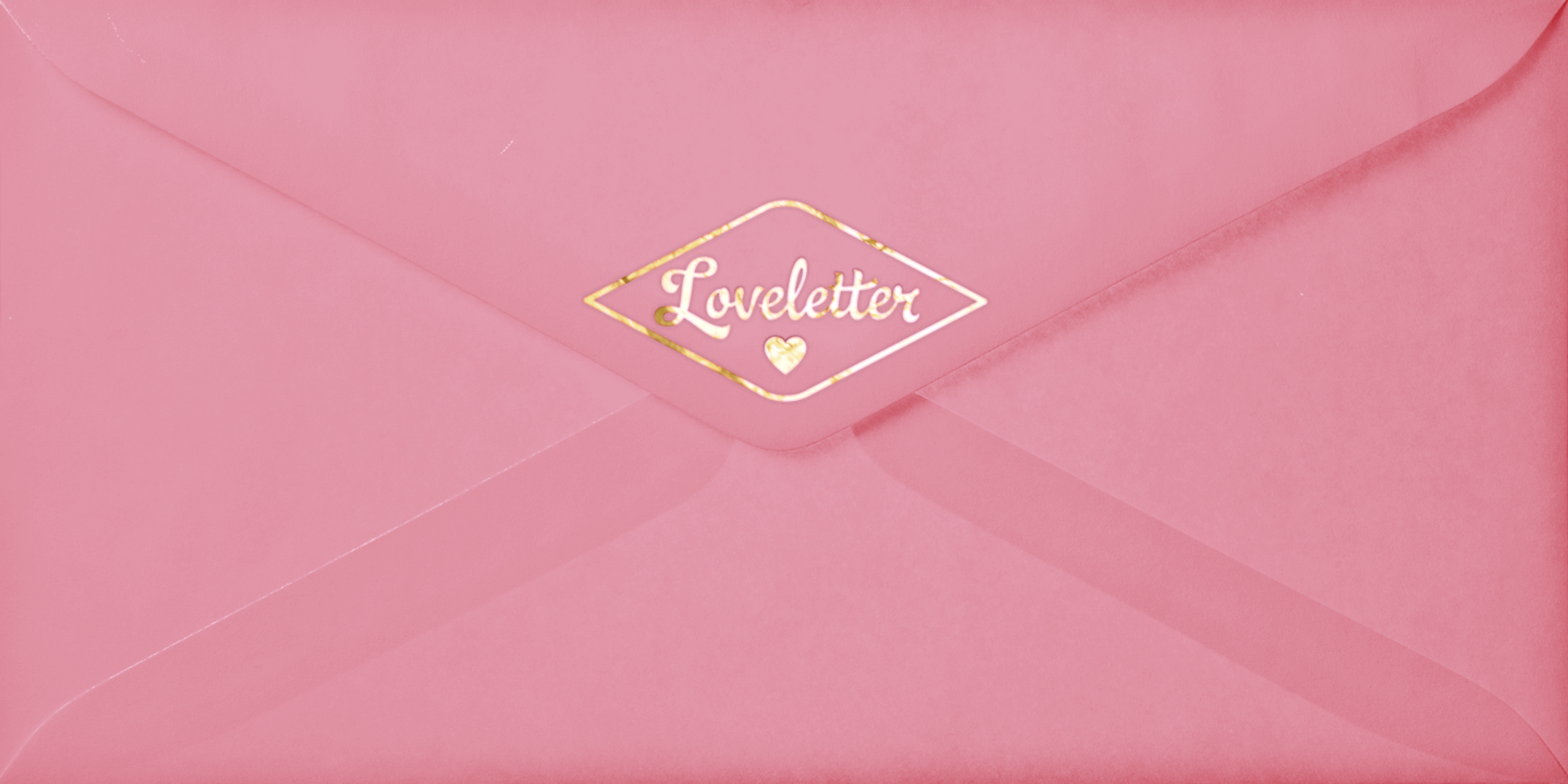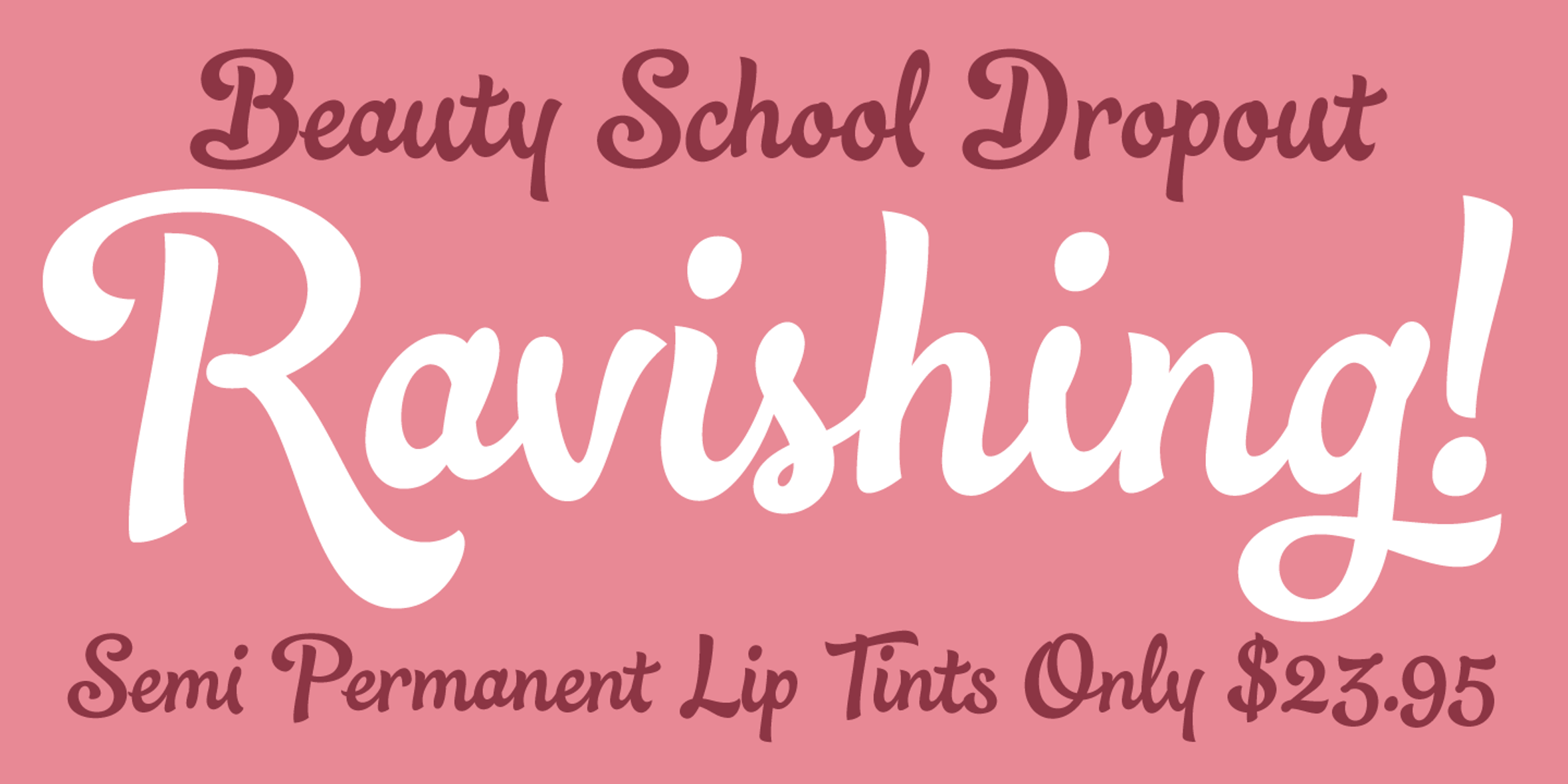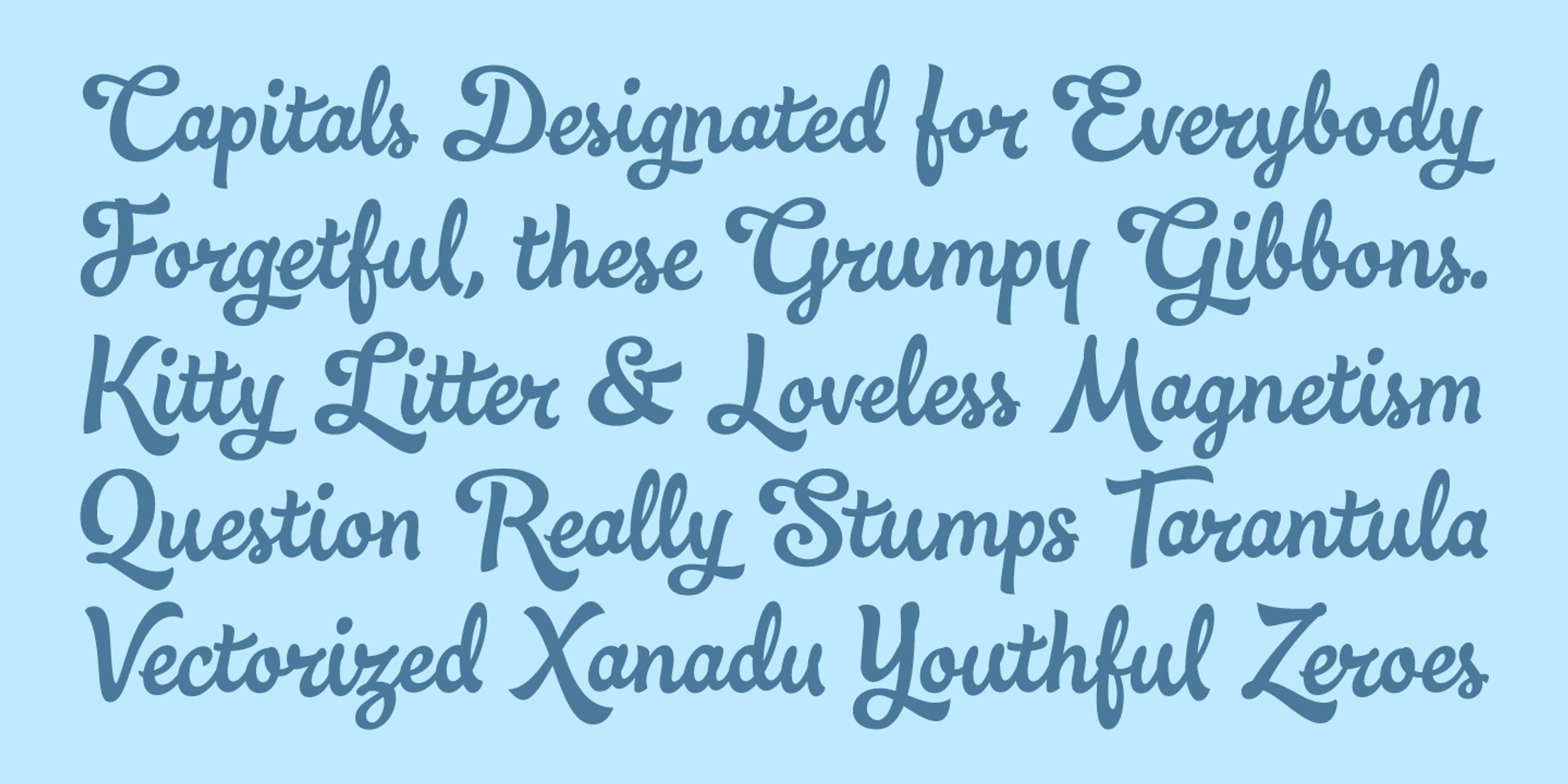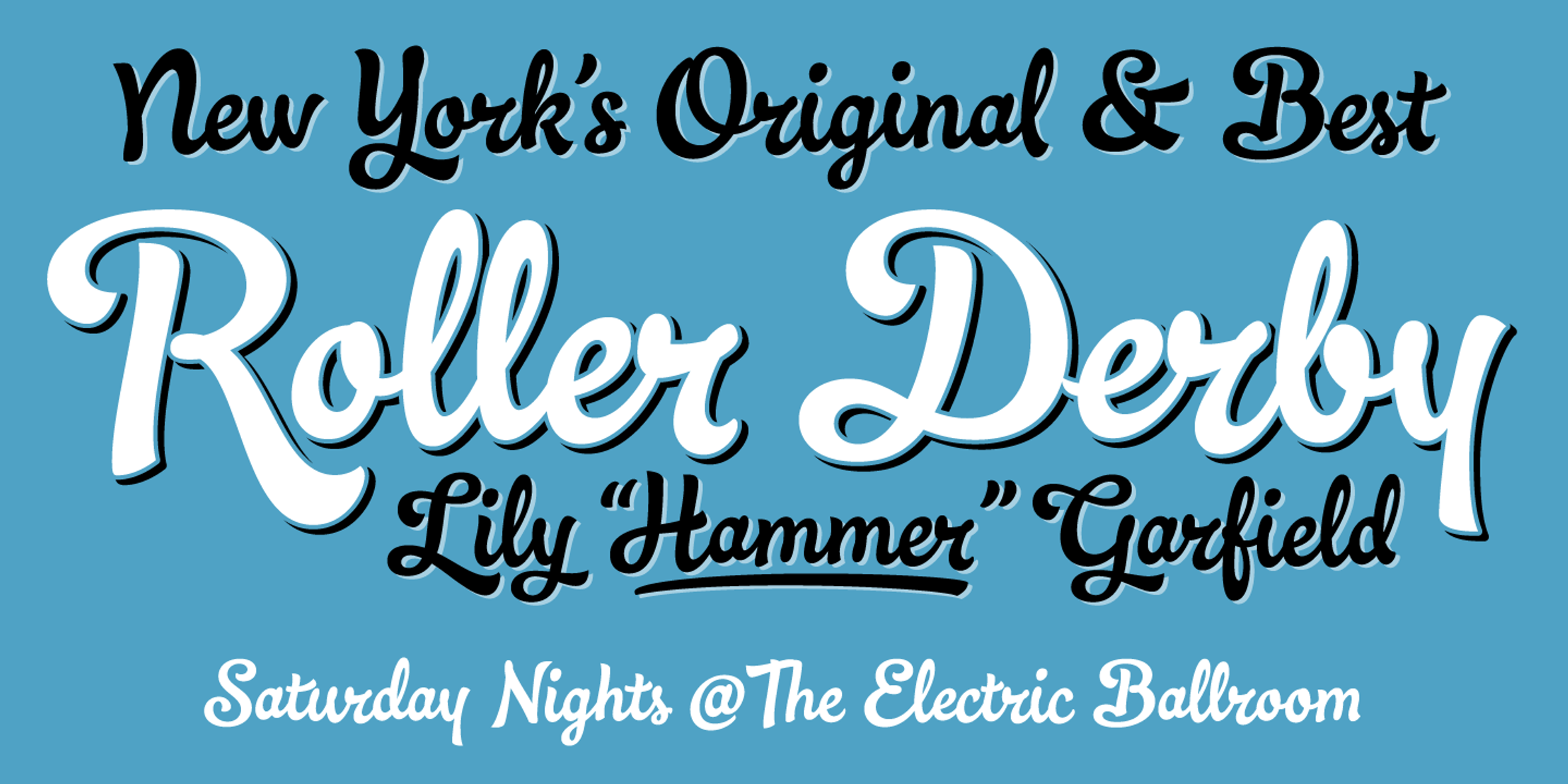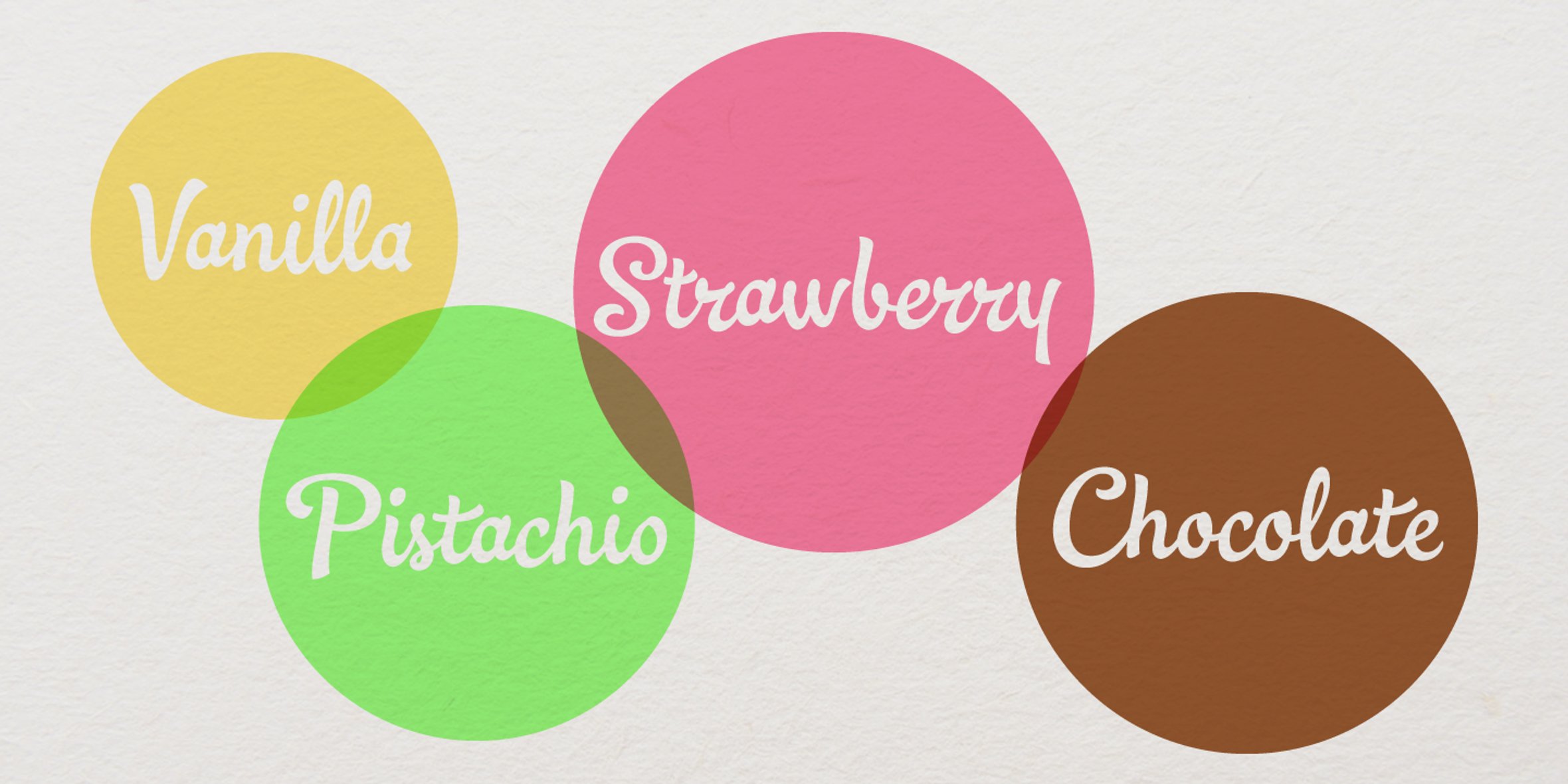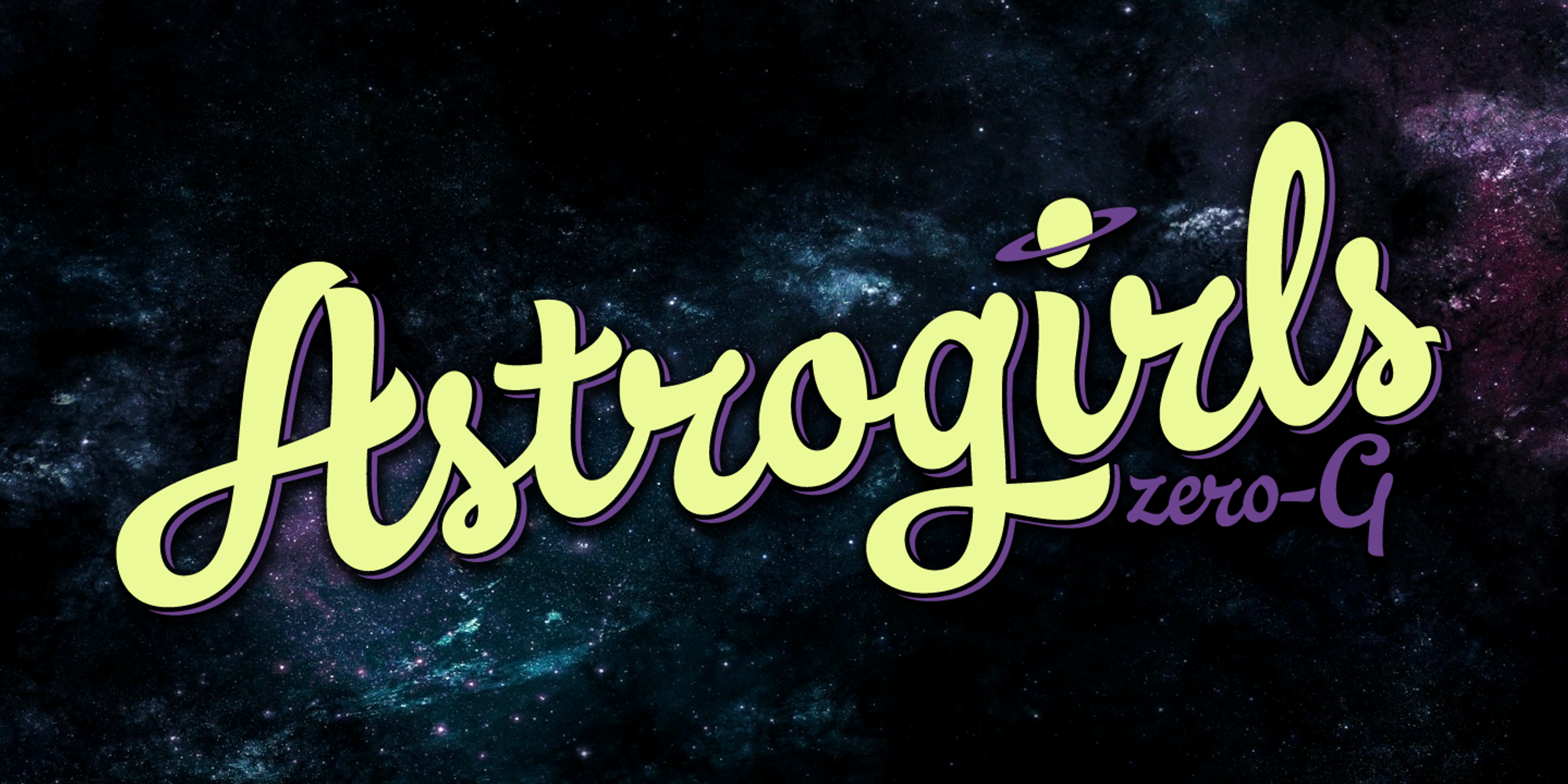
Ollie Font
Ollie
Meet Ollie, a casual signage script. At first blush, the friendly, bouncy exterior belies a heart of sophisticated fancy programming to avoid repetition and make for a more natural-looking design. This is all to say that brand makers and graphic designers can rest assured that no matter what text they throw at Ollie — packaging, magazines, book covers, labels, signage, or posters — it will bear more resemblance to something hand-painted than a typeface, which is the whole idea, right?!
- Common Ligatures
- Old Style Numerals
- Stylistic Alternates
- Swashes